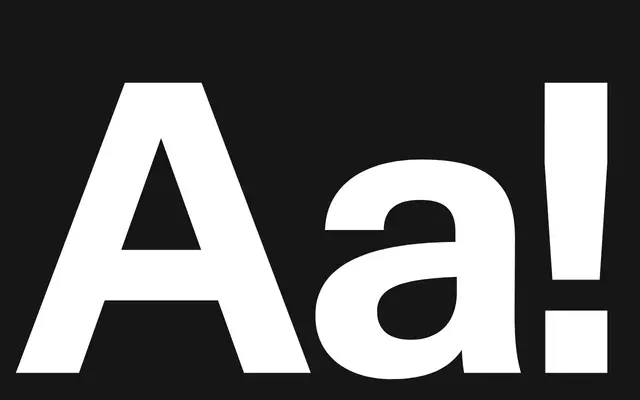
Antarctica
Newglyph · Ian Party
A neo-grotesque variable font by Ian Party offering 288 static styles and four variable axes including a contrast axis, drawing on the minimalism of Swiss grotesque tradition.
Designed by Ian Party at Newglyph, Antarctica is a neo-grotesque sans with a variable font covering weight, width, italic and contrast axes across 288 static styles. The contrast axis sets it apart from straightforward grotesques, allowing movement between a pure sans and a more modulated form. With 547 glyphs per style, it covers an extensive range of Latin-script languages.
Explicitly described as incorporating Neo-Grotesque principles, with a geometric precision and reduction of strokes typical of that tradition. The family includes a contrast axis alongside weight, width and italic axes.